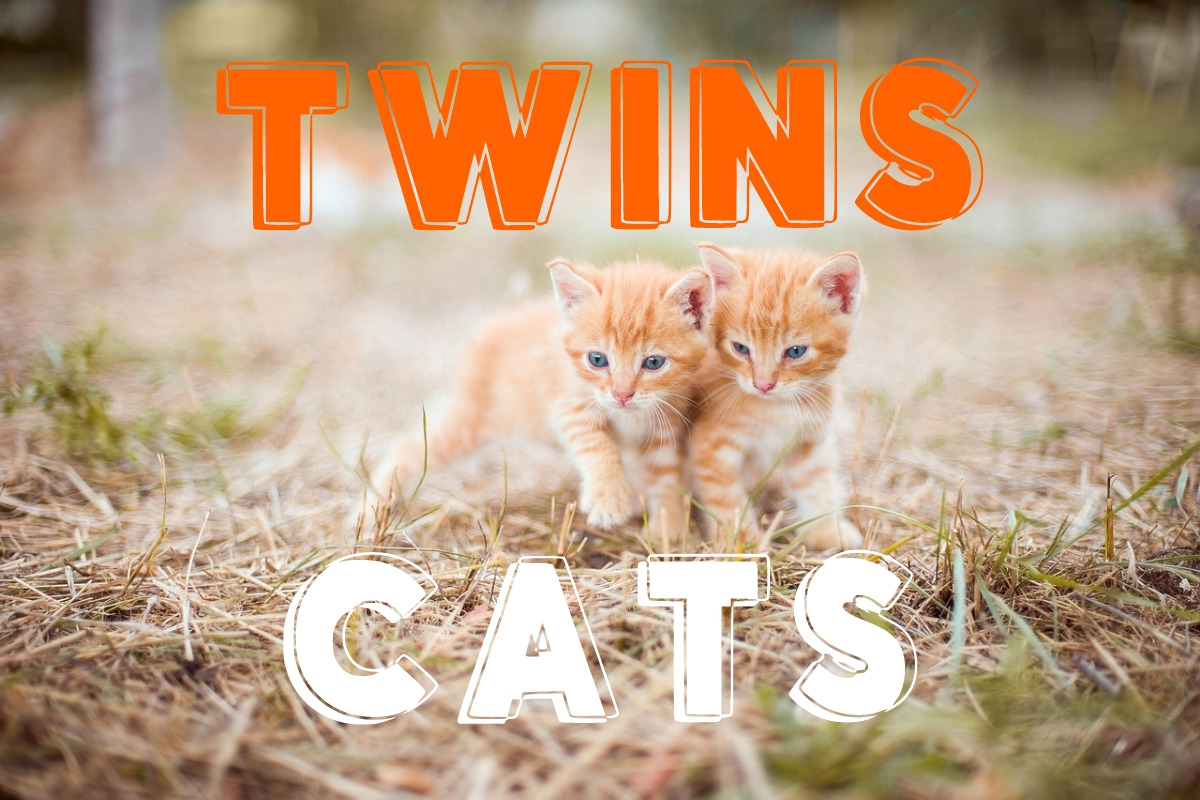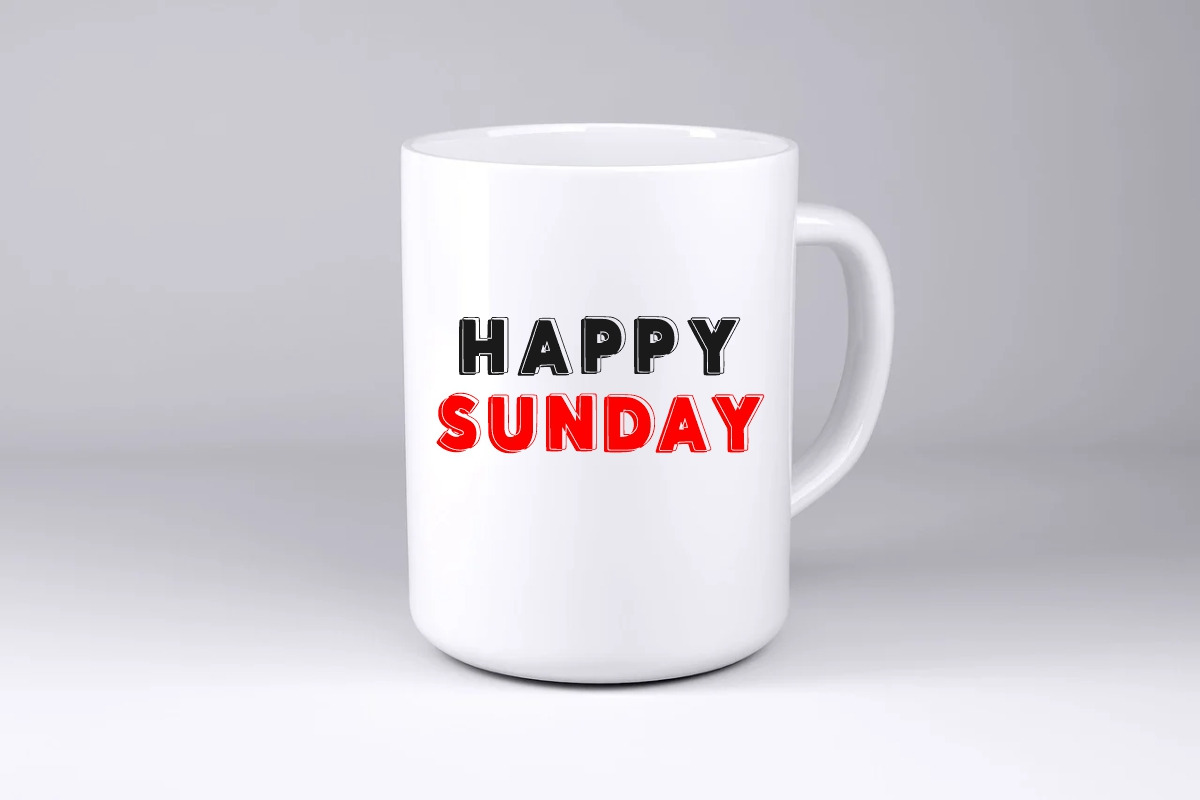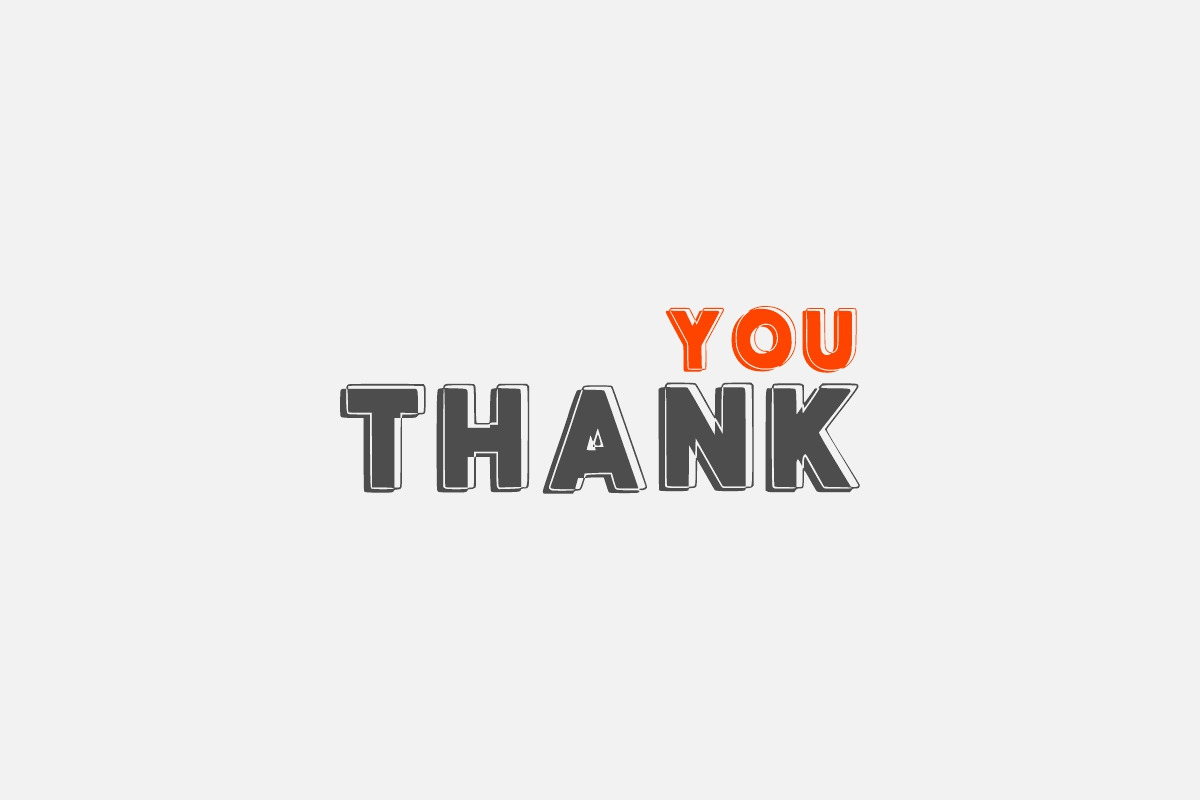
Kids Outline font
nject a burst of playful energy into your next project with the Kids Outline font, a cheerful and vibrant display face designed specifically for children’s media and classroom materials.
With its double-layered outline effect and soft, rounded edges, the Kids Outline typeface creates a sense of depth and excitement that jumps off the page. This font is a dream for birthday invitations, toy packaging, and educational book covers.
The Kids Outline font is highly versatile; try using it with bright primary colors to capture a classic schoolhouse vibe, or soft pastels for a modern nursery aesthetic. Pairing the Kids Outline typeface with a simple, clean sans-serif for body text ensures that your titles remain the star of the show.
Whether you are building a kid-friendly website or designing apparel for toddlers, this font provides a friendly, approachable, and high-energy look that kids and parents alike will love.